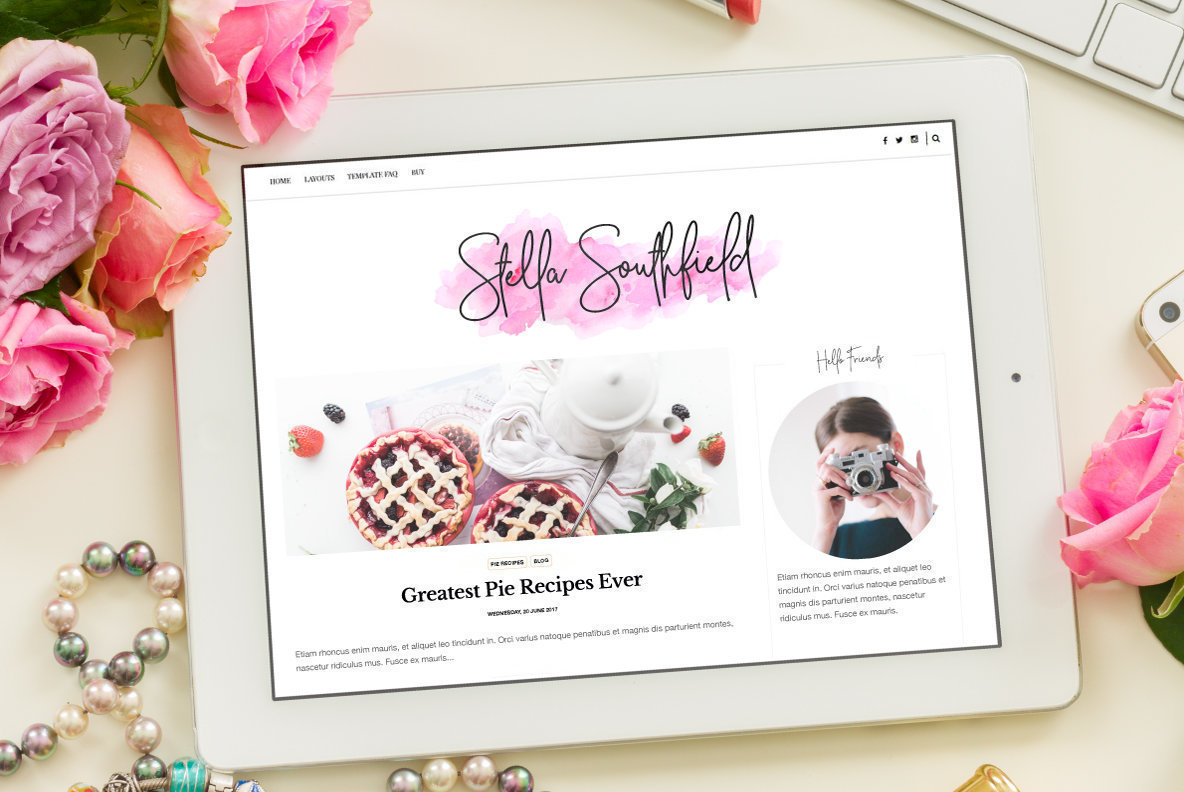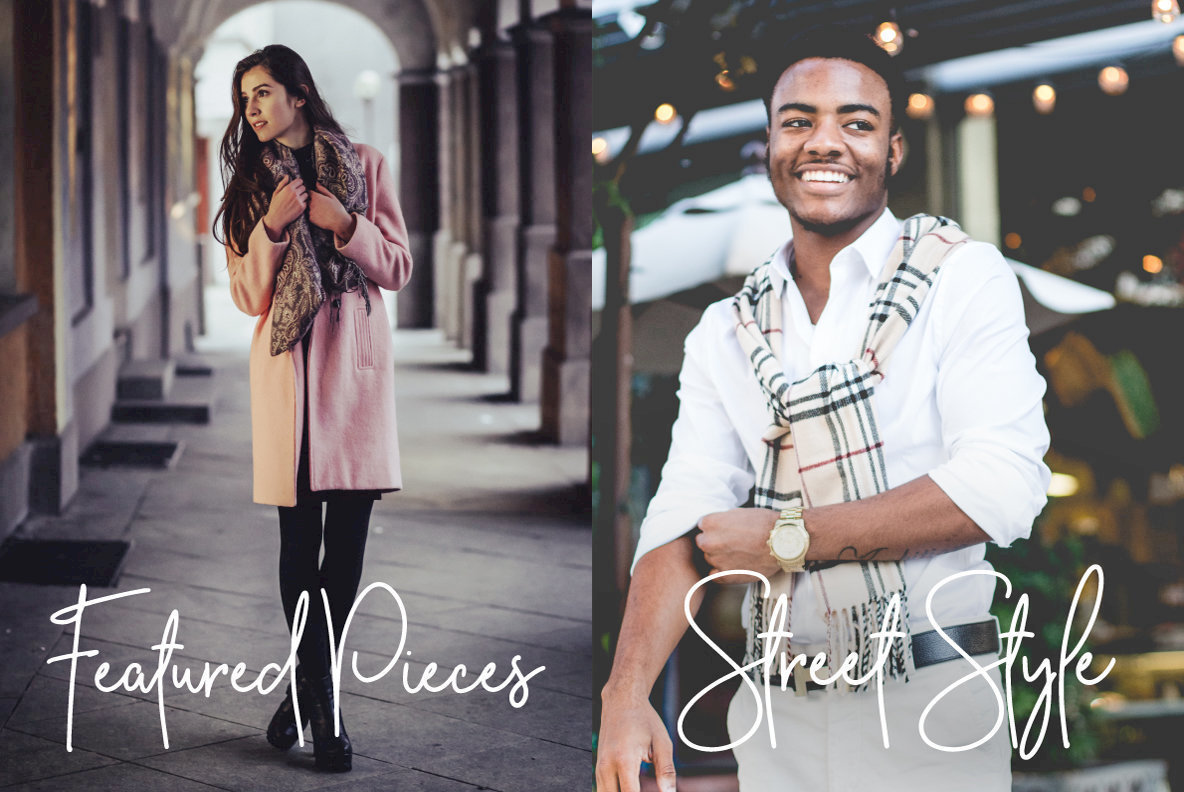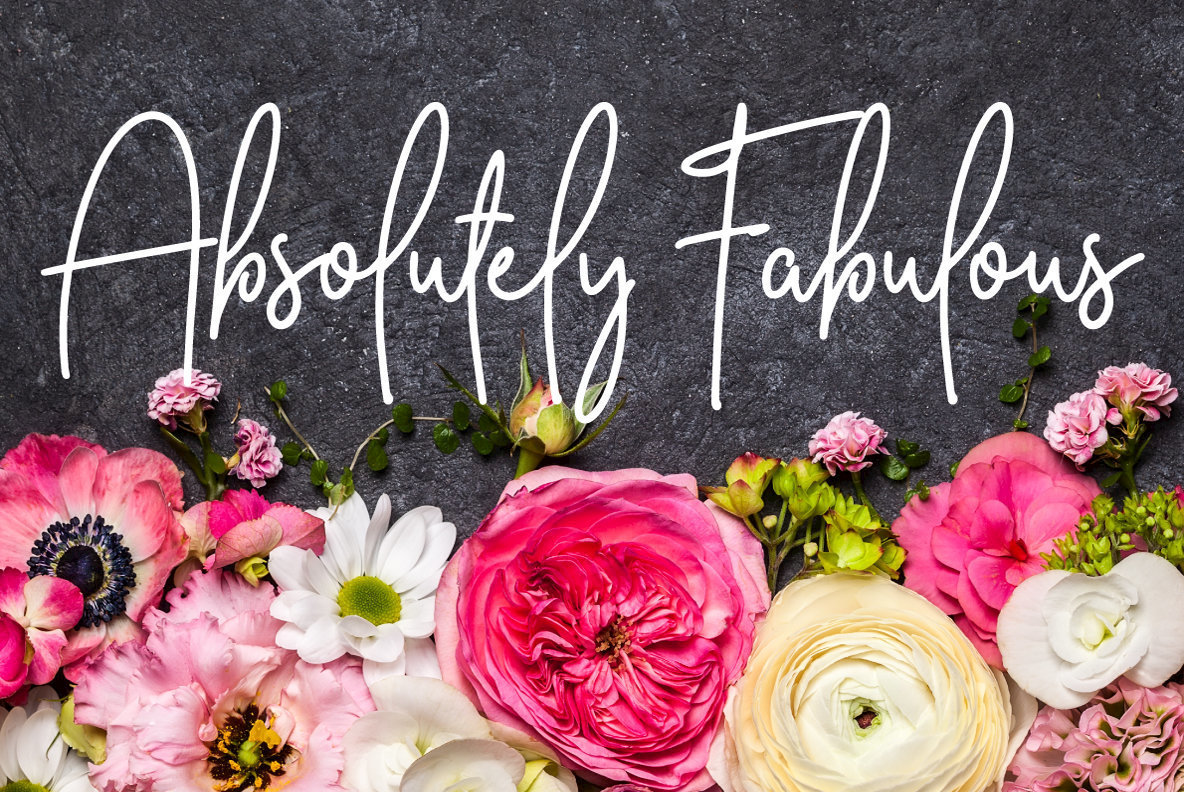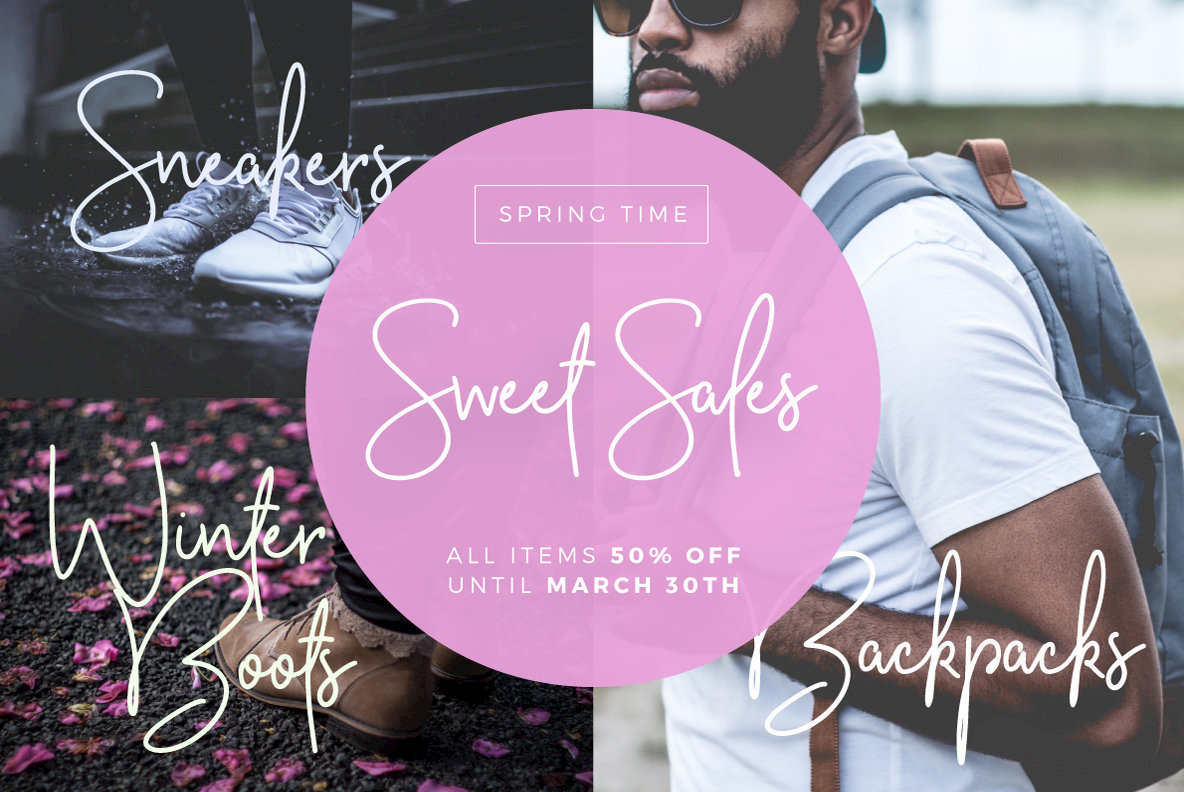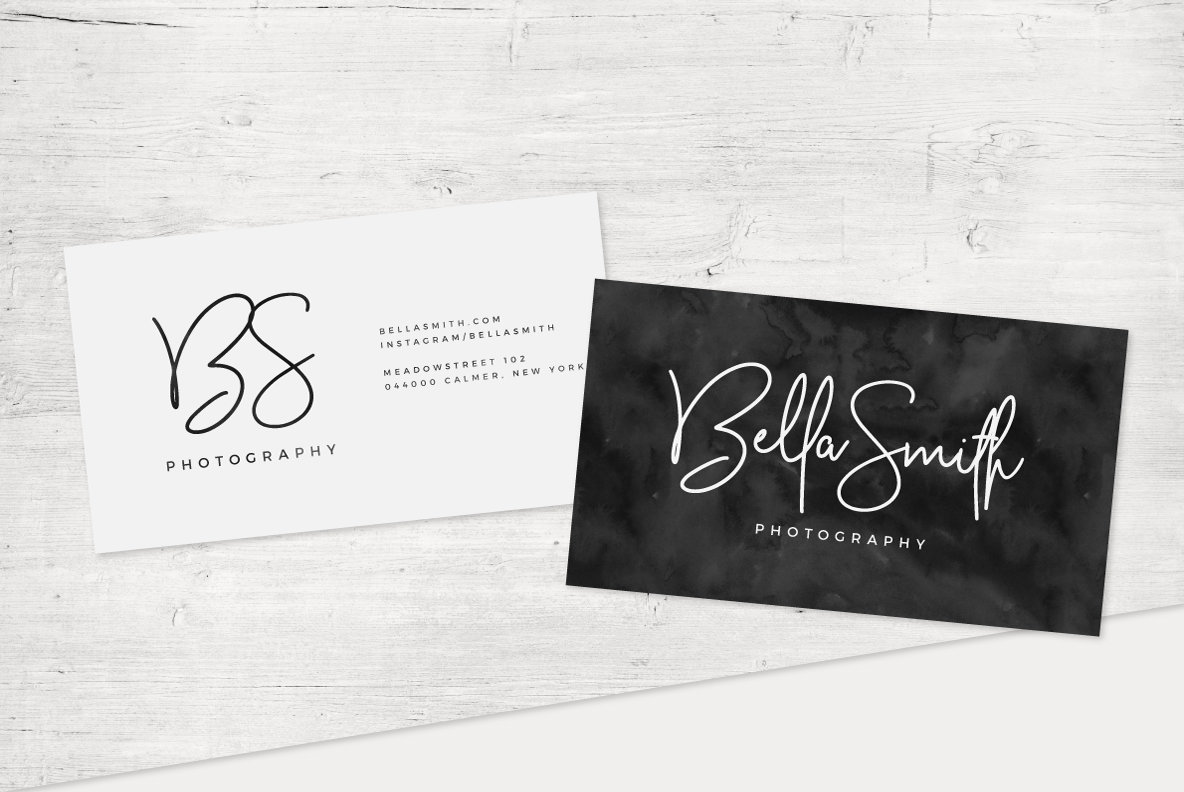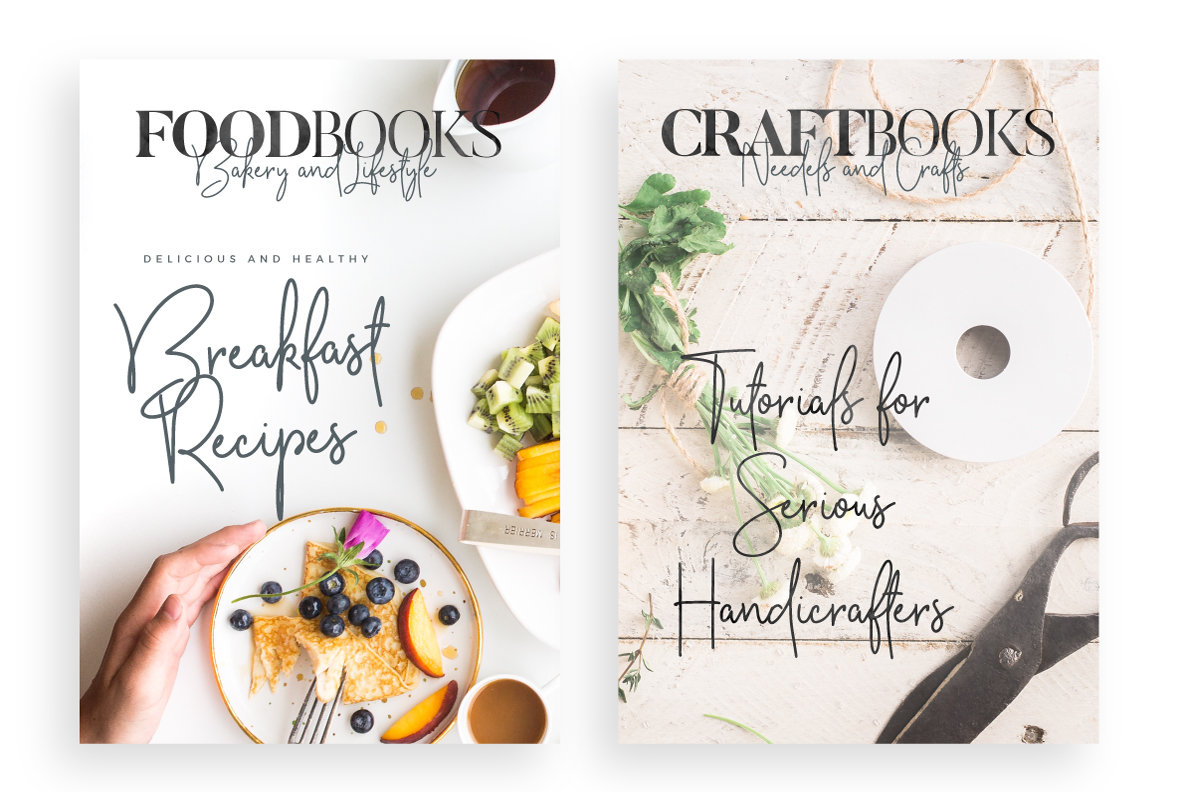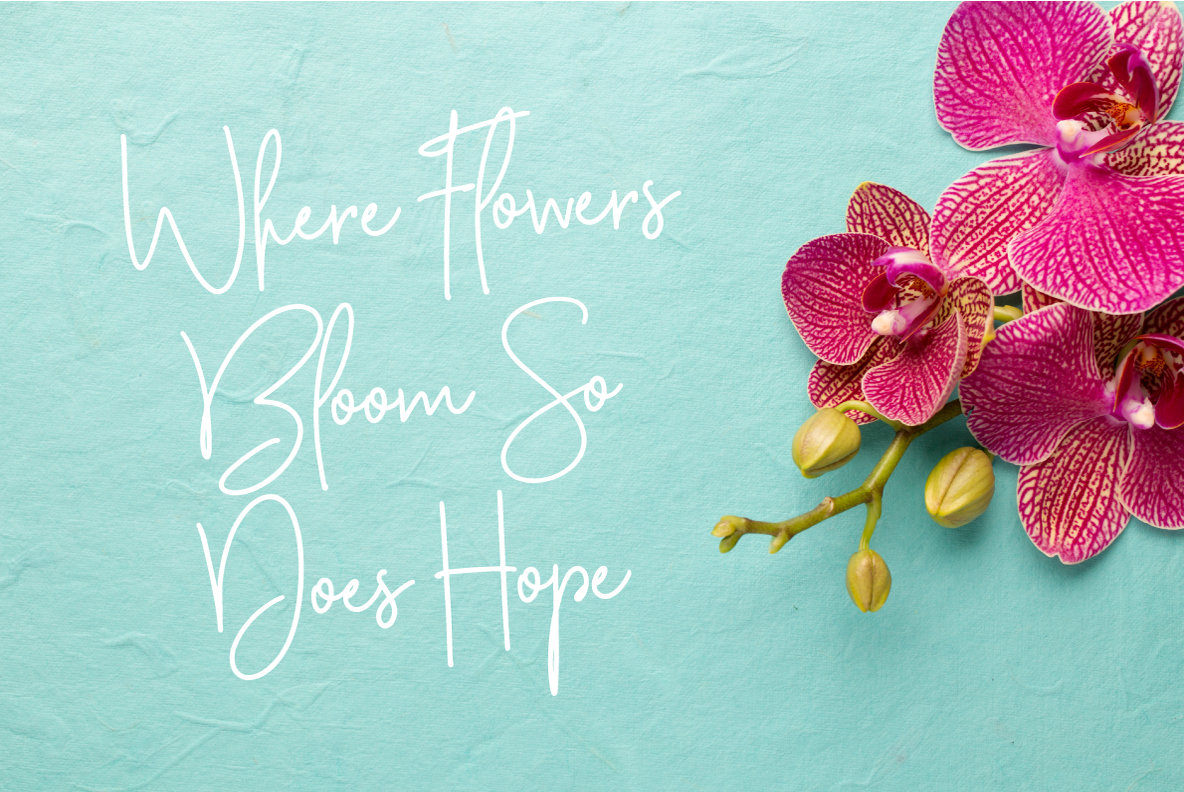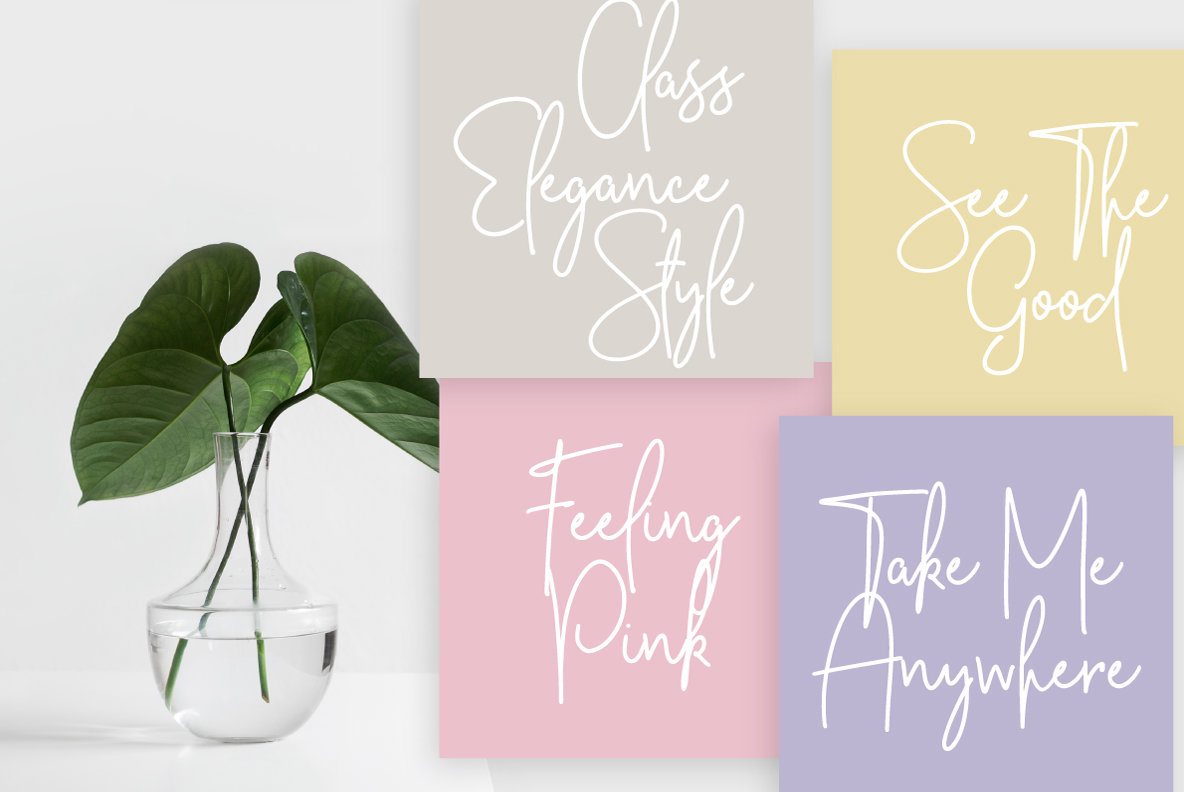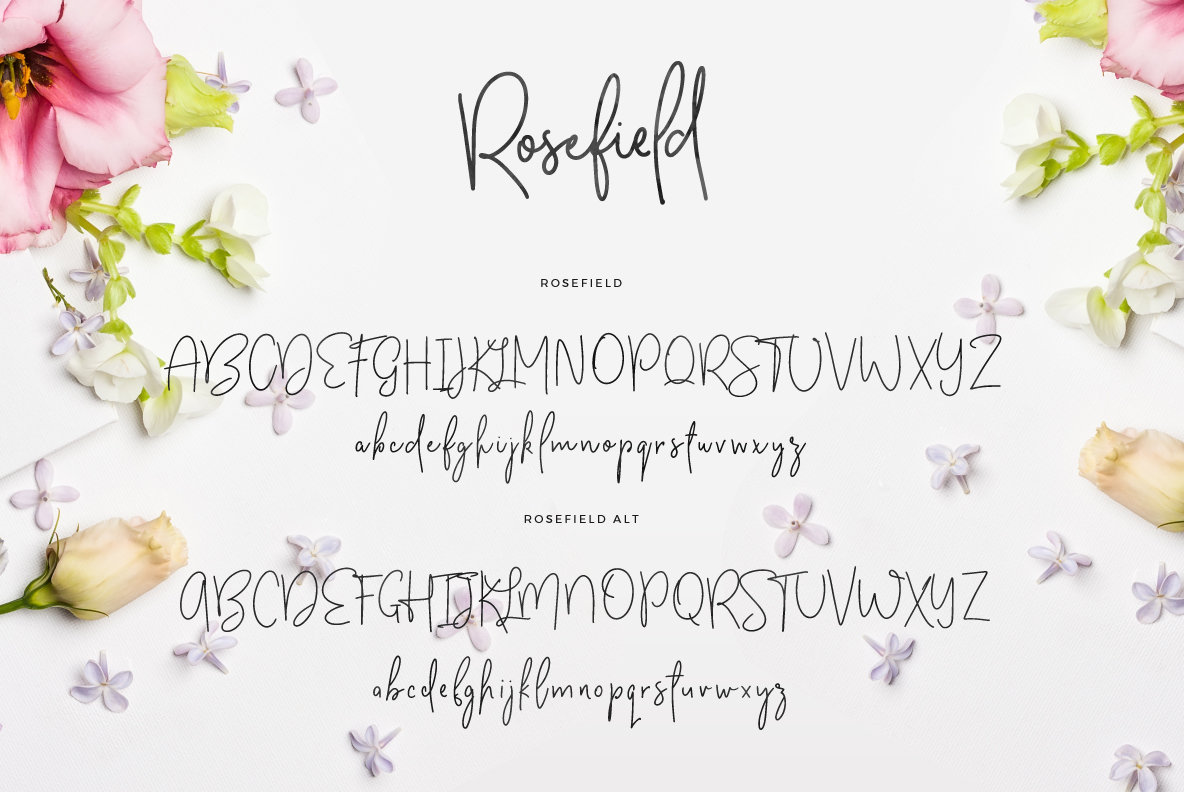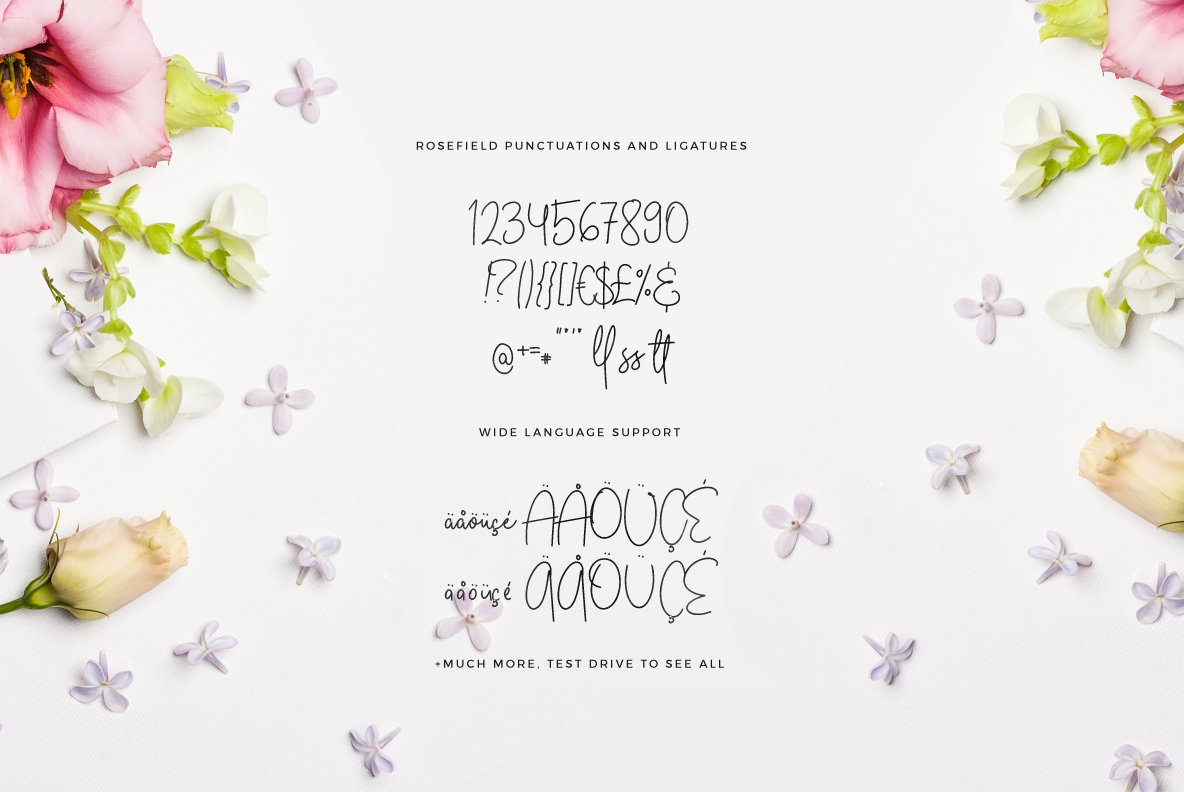
Rosefield Font
Introducing the new lovely Rosefield Typeface. It's a soft-edged font with full alternates (upper and lowercase). Designed to work perfectly in multiple designs like wedding invitations, website logos, Instagram posts and many many more.
ROSEFIELD TYPEFACE - Upper and lowercase characters, numerals, punctuations and a wide language support. Alternates for upper and lowercase characters. Including both, OTF and TTF filetypes.
ROSEFIELD TYPEFACE ALT - Alternates for upper and lowercase characters. Including both, OTF and TTF filetypes.
High-quality & professional fonts with Scandinavian design by self-taught type designer Mats-Peter Forss.